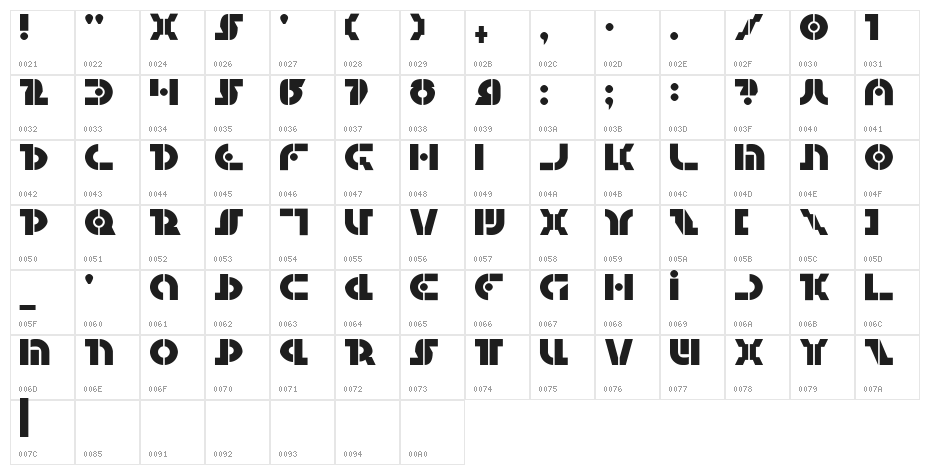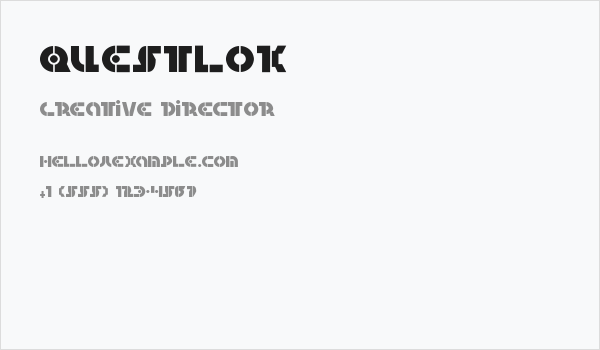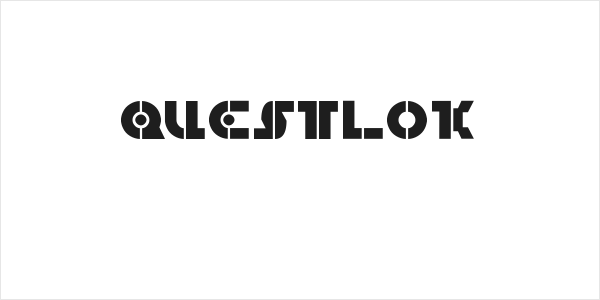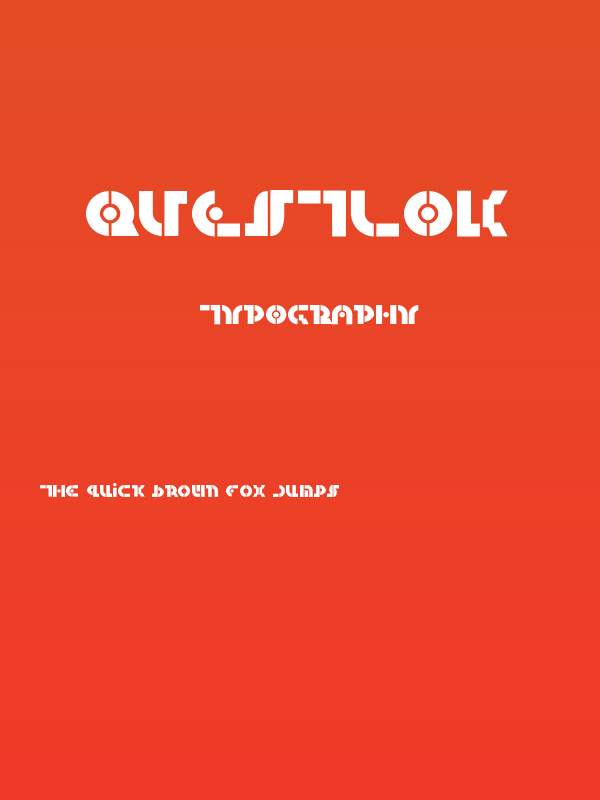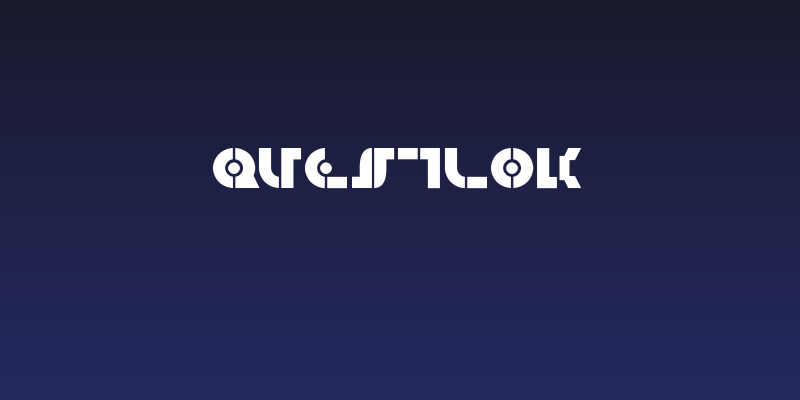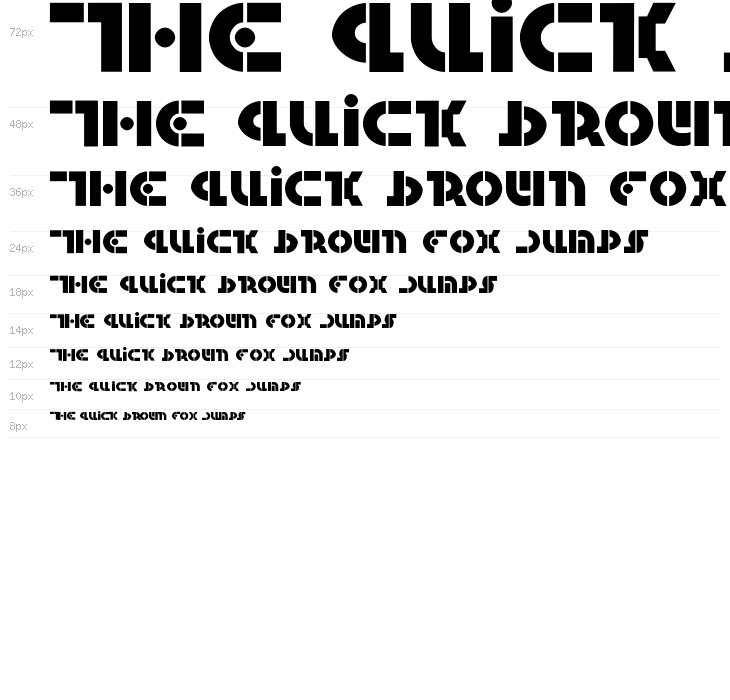
Questlok Font
Questlok Description
This font features a bold and geometric design with a futuristic flair. Each character is constructed with thick, solid strokes and sharp angles, creating a sense of strength and modernity. The letters are uniquely stylized with cut-out sections and circular elements, adding a distinctive and eye-catching appearance. The numbers and special characters follow the same design principles, ensuring consistency across all glyphs. This font is ideal for projects that require a bold statement and a modern aesthetic.
Proposed ProjectsIdeal for branding, posters, sci-fi themed projects, and modern digital interfaces.